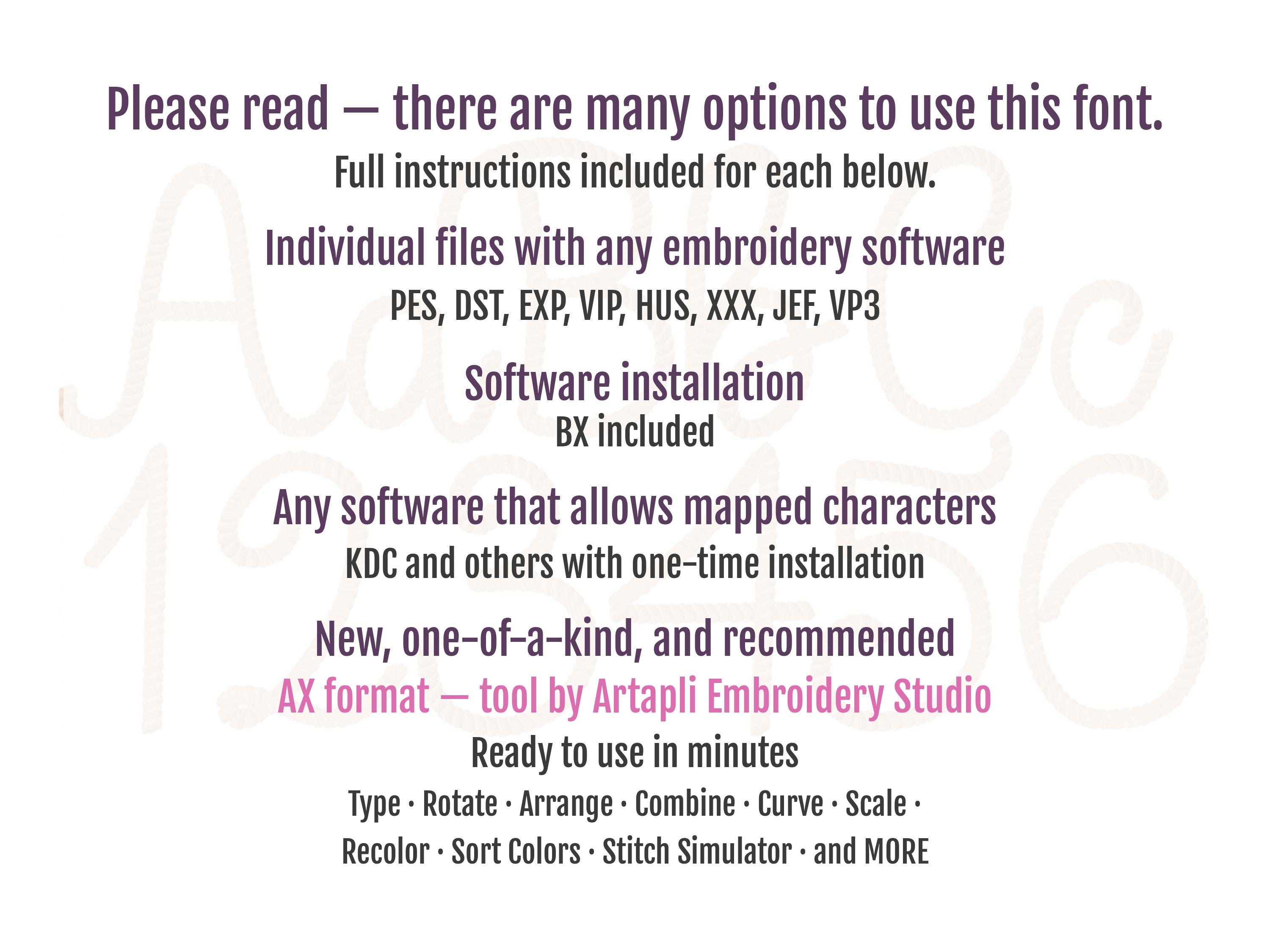
New Rope FONT machine embroidery designs in assorted mini sizes alphabet letters kids playful name cowboy monogram alphabet, BX included
Entire alphabet uppercase and lowercase letters, and numbers.
Super disappointed in this font. It looks thin from the pictures but the 0.8in size is so thick you can't even read it